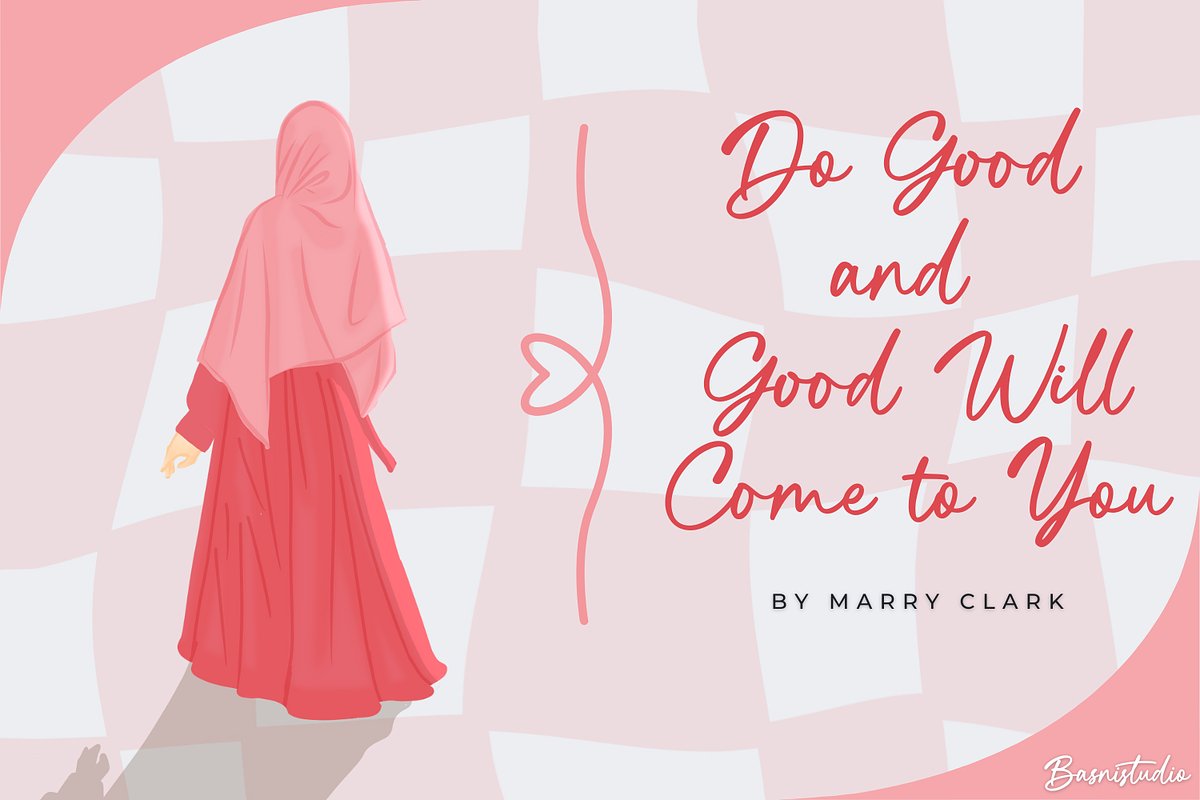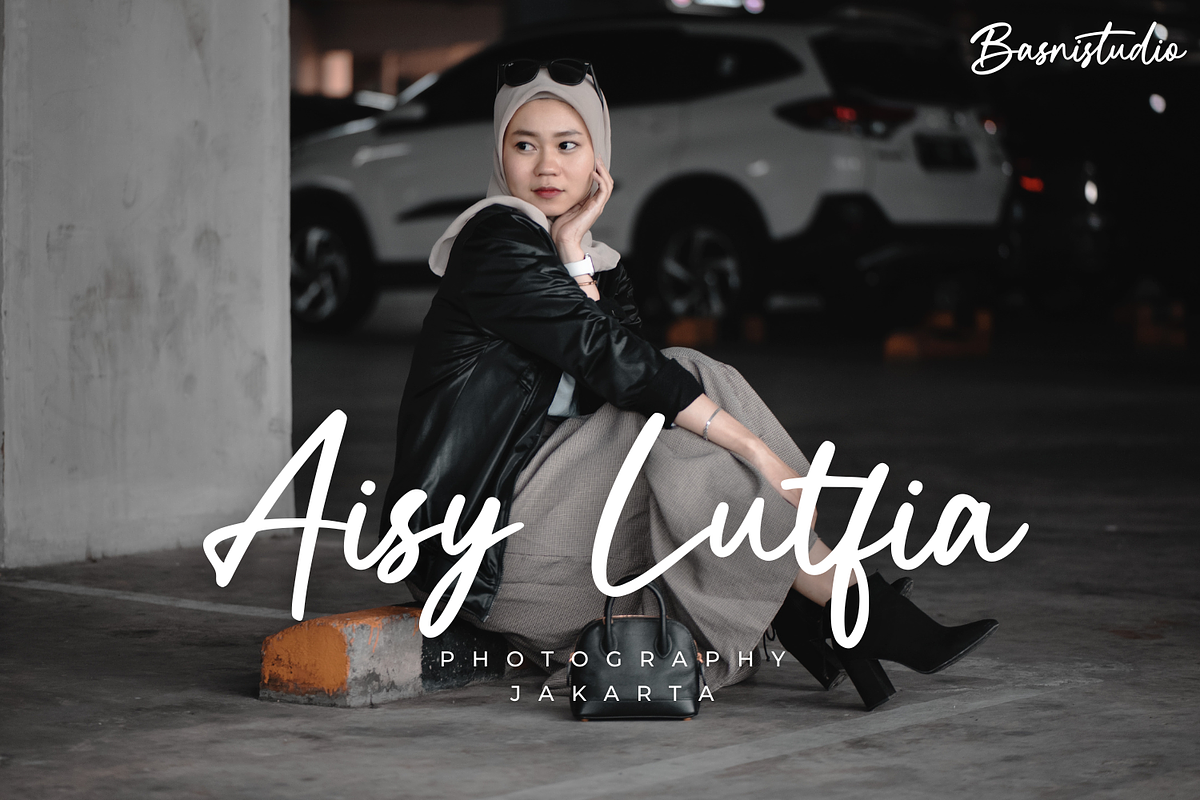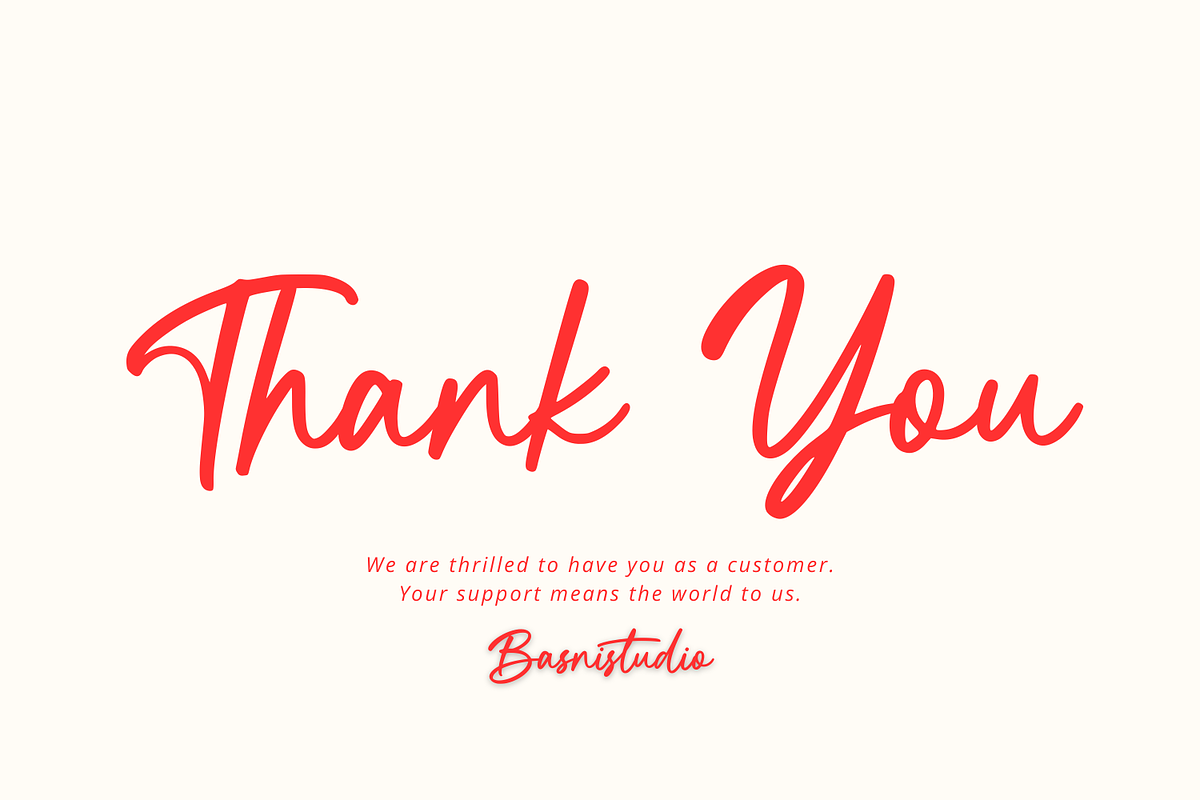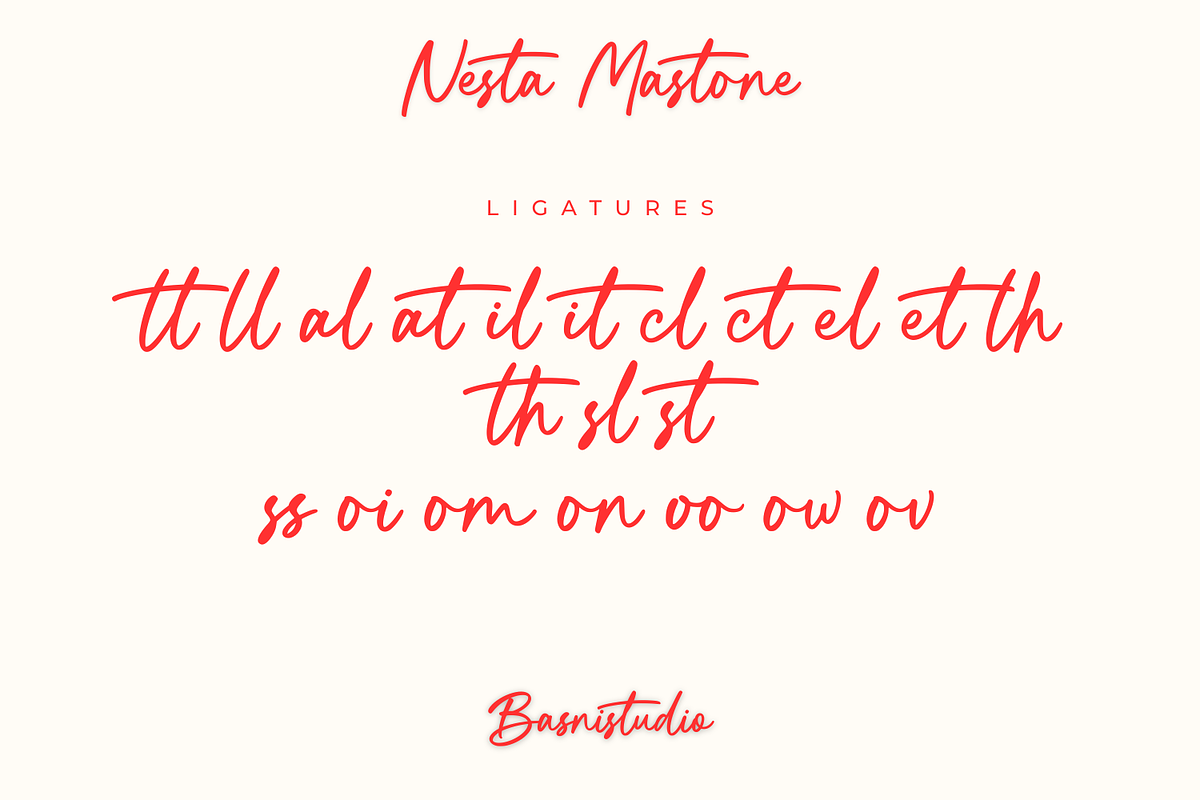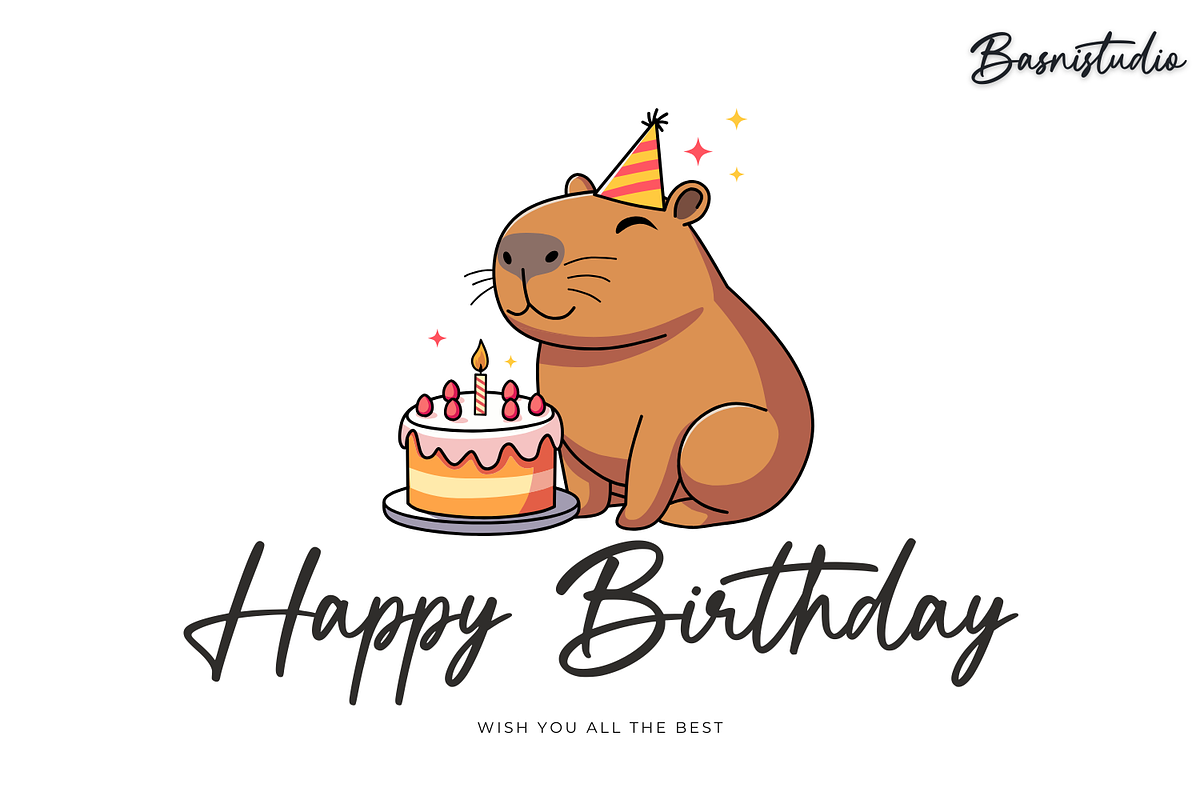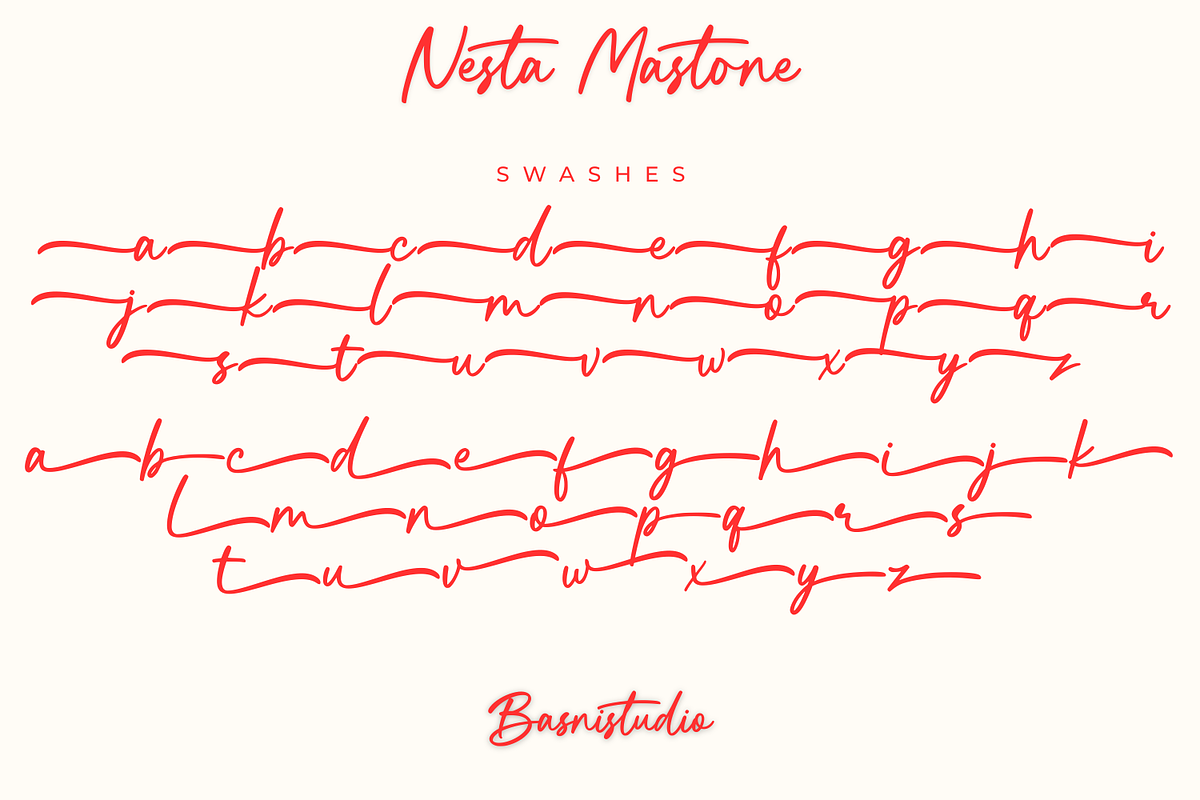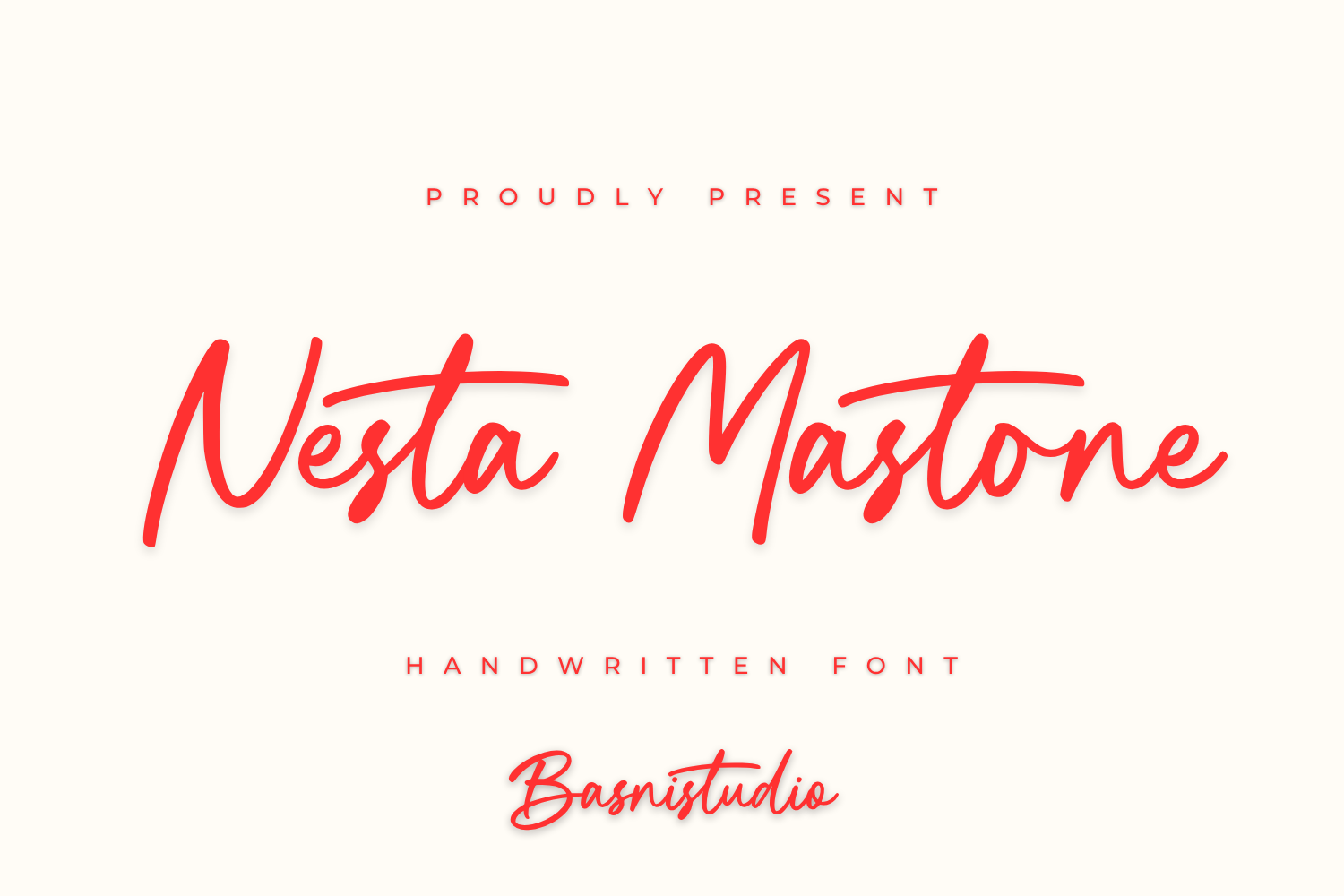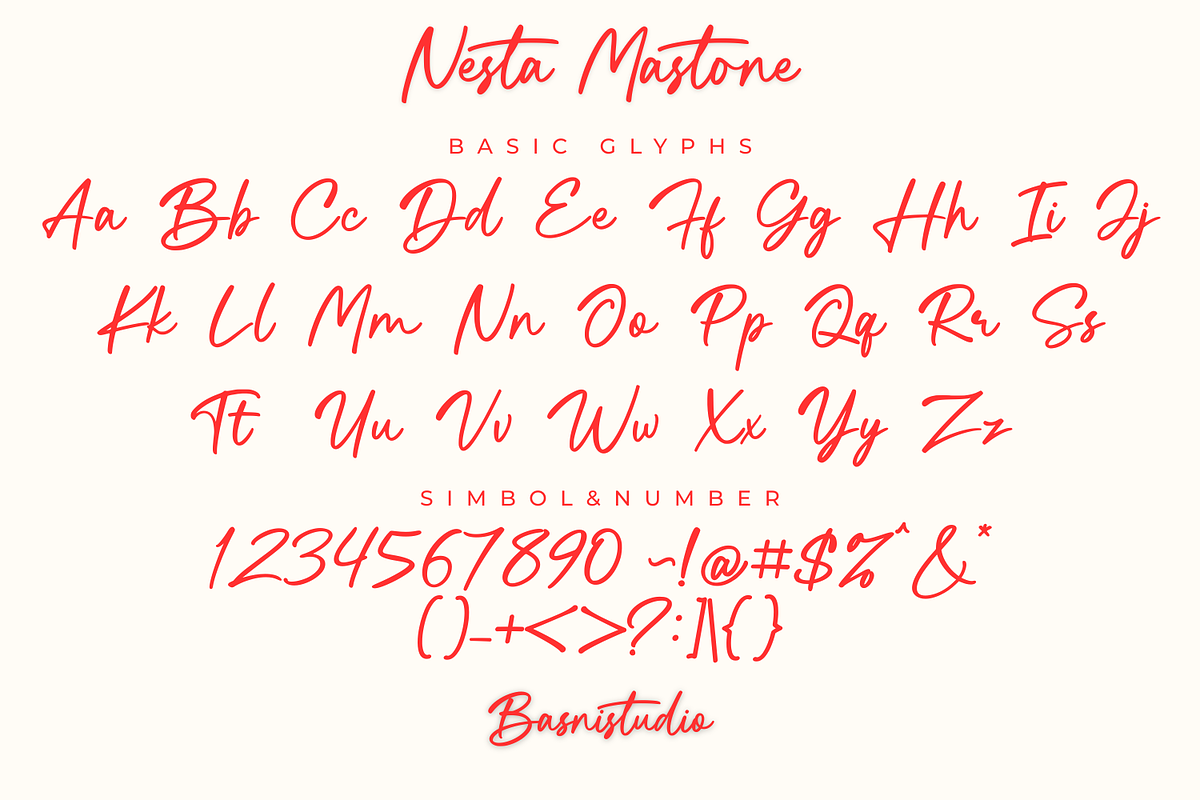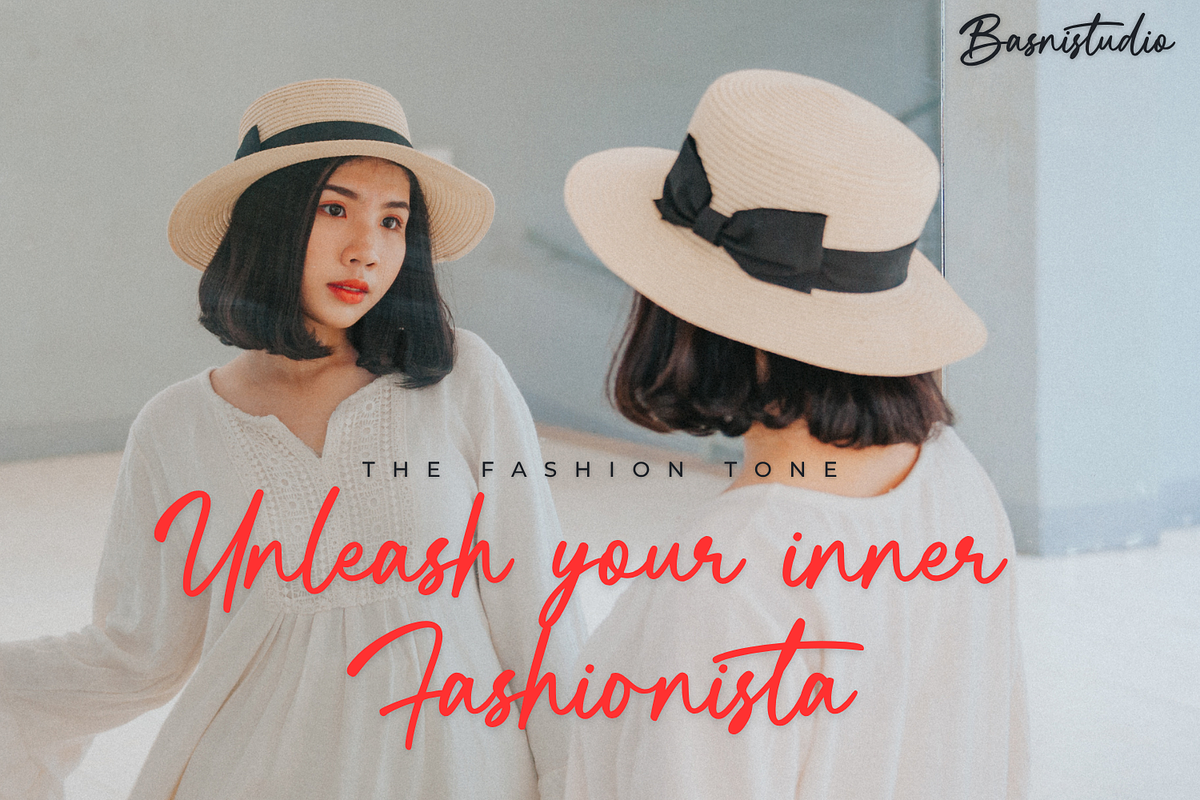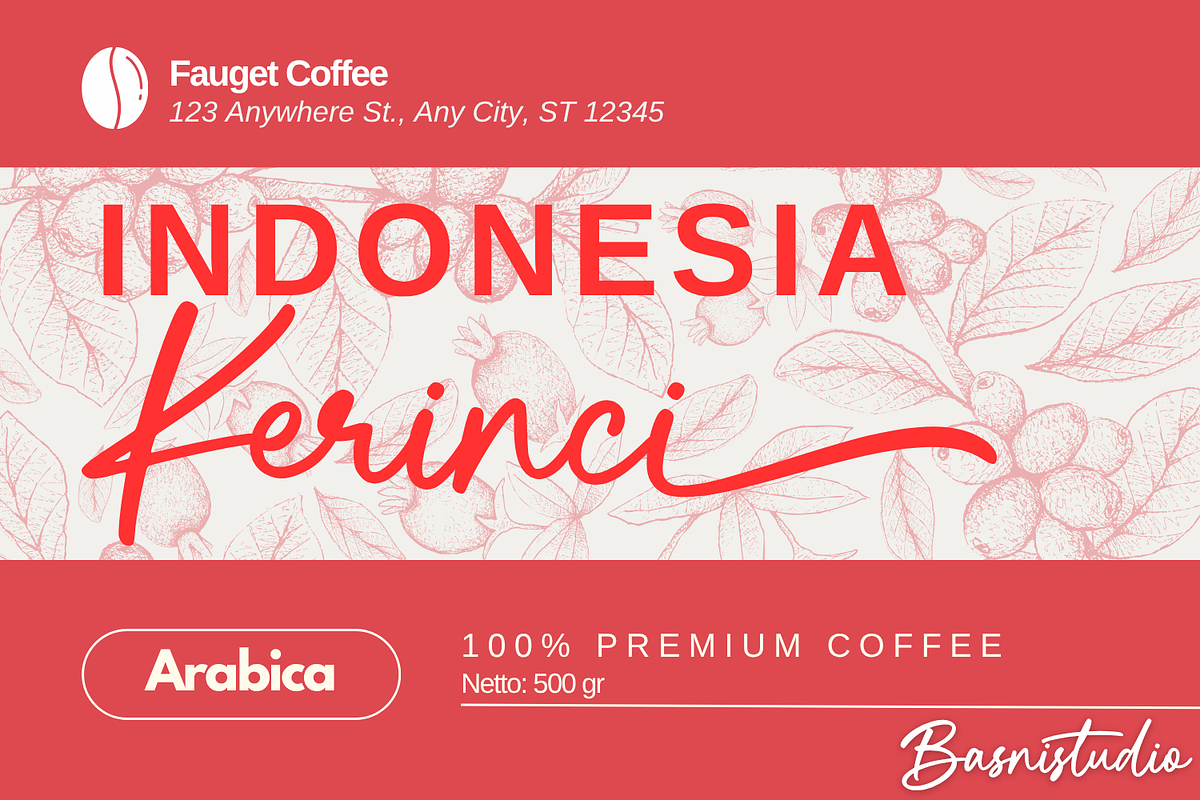
Nesta Mastone a Handwritten Font
The Perfect Handwritten Touch for Your Designs
Introducing Nesta Mastone a Handwritten Font that adds a elegant, versatile touch to everything from branding and social media to invitations and packaging.
✔ Elegant & Versatile – Perfect for logos, quotes, greeting cards, and more ✔ Authentic Handwritten Feel – Created with real pen strokes for a natural look ✔ Easy to Use – Works seamlessly with all major design programs
Whether you’re building a powerful brand identity or crafting a standout logo,
Nesta Mastone a Handwritten Font gives you the creative edge you need.